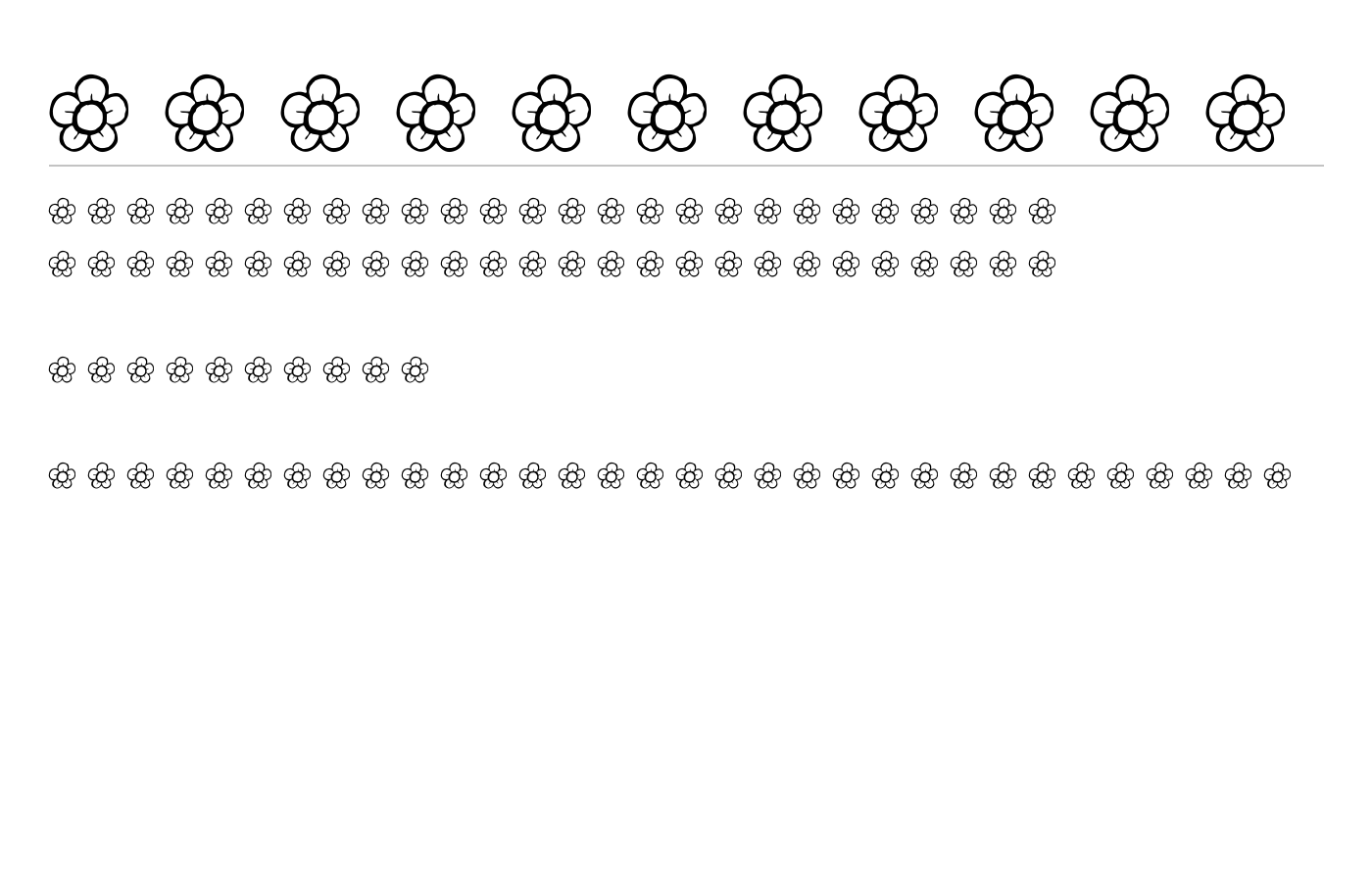
2 September Font is a charming and playful dingbat-style typeface composed entirely of simple, hand-drawn floral icons. Its clean, outlined flower shapes bring a whimsical, friendly vibe, making it perfect for decorative accents, craft projects, or branding aimed at a lighthearted, youthful audience. This font works well where a touch of creativity and warmth is desired without the formality of traditional text fonts.
2 September Font